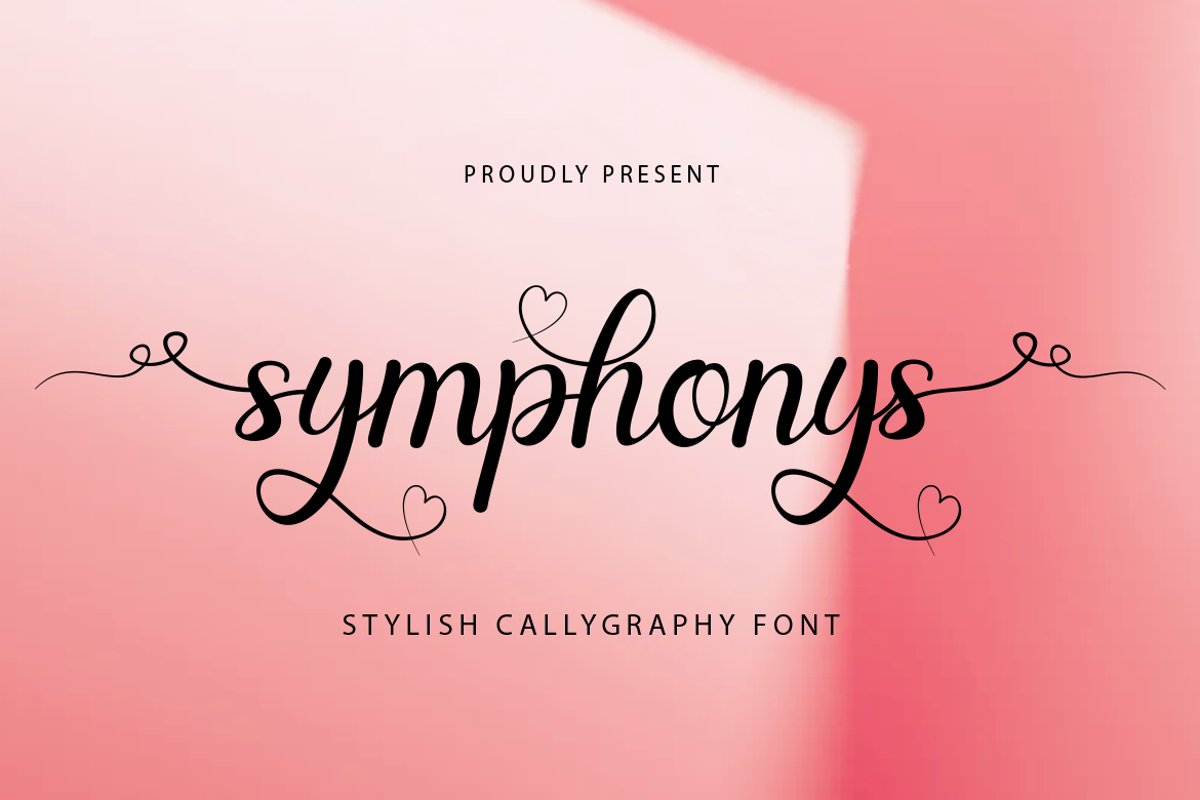
symphonys
Symphonys is a bold script font, carefully handcrafted to become a true favorite. Its casual charm makes it appear wonderfully down-to-earth, readable and, ultimately, incredibly versatile. Outside will look outstanding in any context, whether it’s being used on busy backgrounds or as a standalone headline!